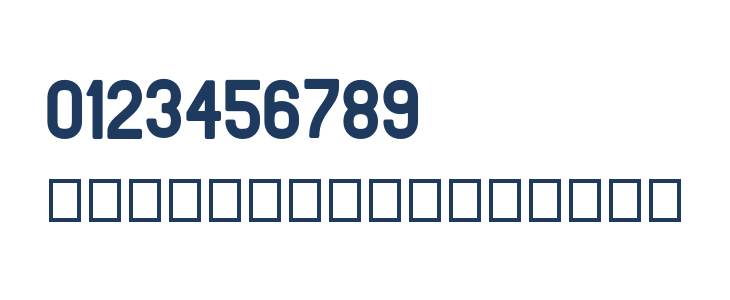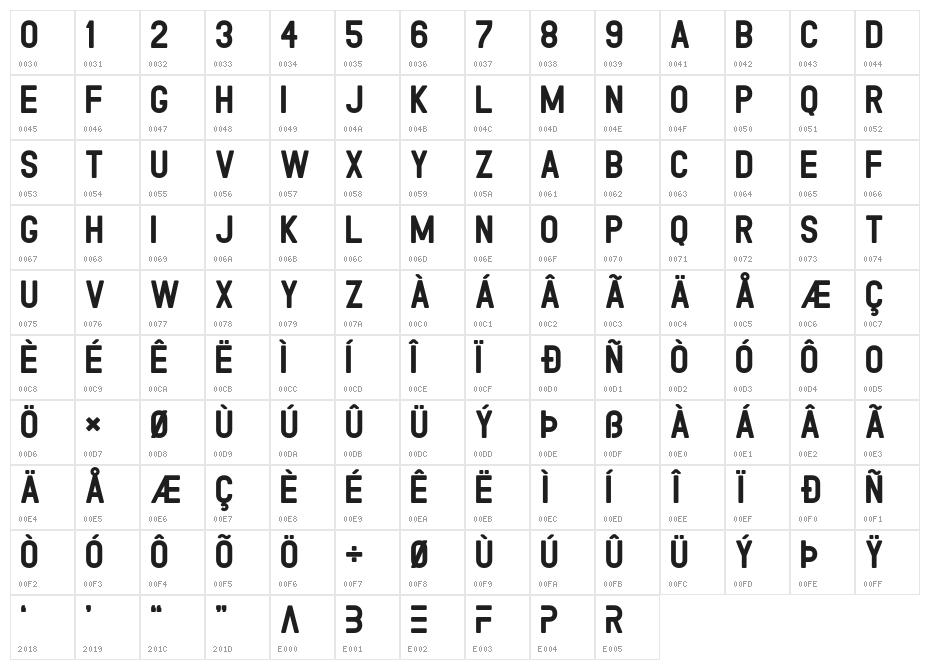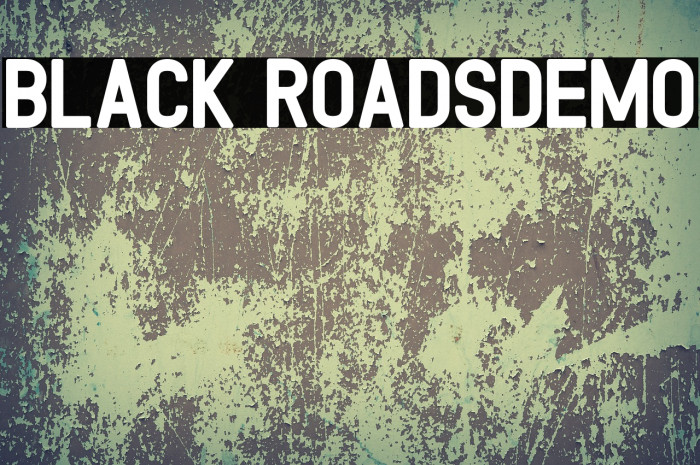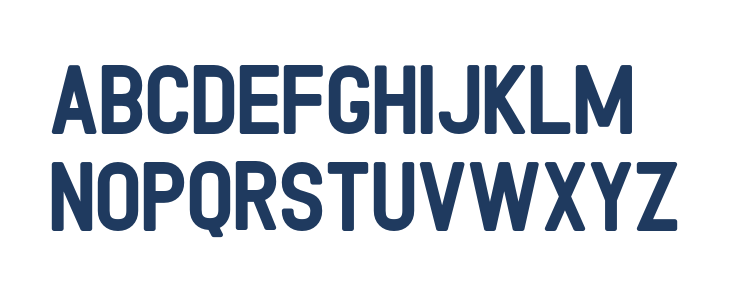
Black RoadsDEMO Font
Black RoadsDEMO Description
This font features bold, geometric letterforms with a strong presence. The uppercase and lowercase characters maintain a consistent weight, creating a uniform appearance. The numerals are equally bold, ensuring readability and impact. The font's design is clean and modern, with a slight industrial feel, making it suitable for a variety of applications. The characters are well-spaced, providing clarity and legibility. The absence of serifs gives it a contemporary look, while the boldness of the strokes adds to its commanding style.
| Use Case | Headlines, Logos, Signage |
| Proposed Projects | Ideal for branding, signage, headlines, and any project requiring a strong visual impact. |